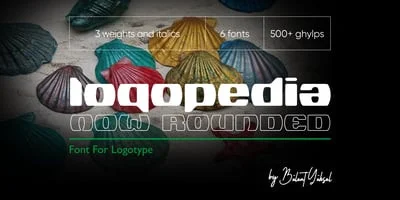
Logopedia Now
Logopedia Now Font
Logopedia Now Font is perfect for speech therapy clinic branding, educational app interfaces, children's learning materials, communication disorder resources, special needs program signage, and therapeutic practice logos.
Logopedia Now Font is exciting because it perfectly balances professional expertise with approachable warmth, offering speech therapists a specialized typeface that communicates competence while creating comfortable learning environments for patients.
The Logopedia Now Font family includes therapeutic variations: Logopedia Now Light, Logopedia Now Regular, Logopedia Now Medium, Logopedia Now Bold, and accessibility-optimized alternates designed for enhanced readability in clinical settings.
Enhance communication with Logopedia Now Font, a professionally designed typeface that brings clarity and therapeutic warmth to speech pathology and communication disorder treatment programs. This specialized font excels in creating trustworthy branding for speech therapy practices, autism support centers, early intervention programs, and healthcare facilities that provide essential communication services to children and adults with speech challenges. The carefully crafted letterforms feature optimal character spacing and clear phonetic distinctions that support reading comprehension while maintaining welcoming visual appeal across all therapeutic applications. Perfect for therapy workbooks, assessment materials, parent education resources, and medical clinic signage that needs to communicate both professional competence and compassionate care, this font connects with families seeking effective speech therapy solutions. Each character promotes clear communication, making every educational material feel supportive and encouraging for patients on their speech development journey. Logopedia Now Font transforms clinical communications into empowering tools that inspire confidence and facilitate successful therapeutic outcomes across diverse communication challenges.